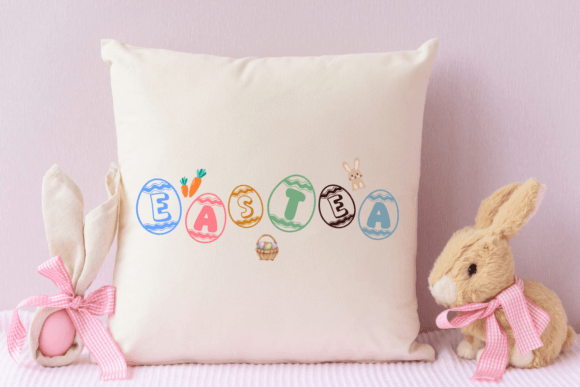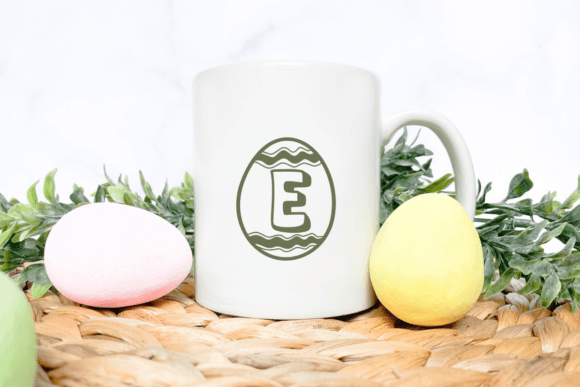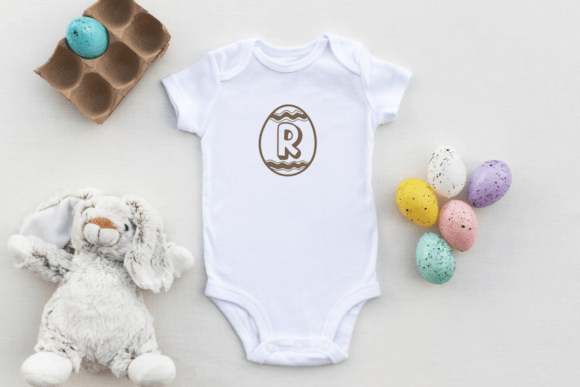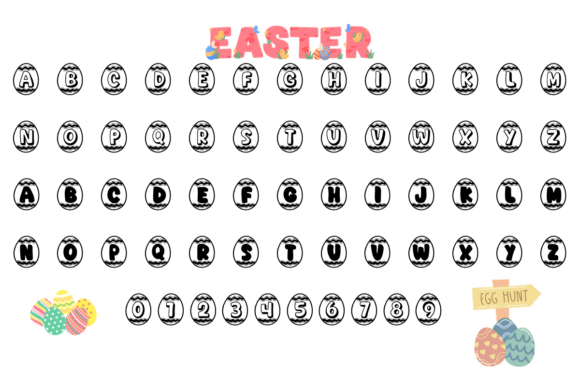
The Enchanting Easter Egg Font: A Designer’s Delight
I still remember the time I was working on a Easter-themed project for a client, and I was struggling to find the perfect font to capture the essence of the holiday. The design needed to be playful, yet elegant, and I wanted it to stand out from the usual serif and sans-serif fonts. That’s when I stumbled upon the Easter Egg font, and it was love at first sight! Imbued with charm and character, this enchanting decorative font has since become a staple in my design toolkit.
- ✨ Unique and playful character set, perfect for Easter-themed designs
- ✅ Highly versatile, suitable for a wide range of design projects, from notes and diaries to banners and social media posts
- 💫 Beautifully crafted, with a charming and whimsical feel
- 🎨 Great for adding a touch of personality to stationery, greeting cards, and more
While the Easter Egg font is a delightful addition to any design project, there are a few things to keep in mind:
- 🤔 Limited use outside of Easter-themed designs, as it may not be suitable for more formal or professional projects
- ⚠️ May not be the best choice for body text, as it’s more suited for headlines and titles
The Easter Egg font was designed with the intention of capturing the whimsy and playfulness of the Easter holiday. The designer, inspired by the colorful eggs and springtime flowers, created a font that would bring a touch of magic to any design project. With its unique character set and beautiful craftsmanship, it’s no wonder that Easter Egg has become a favorite among designers and crafters alike.
| Font Name | Easter Egg Font |
| Author | Bee piyanuch |
| What is the Easter Egg font best used for? | The Easter Egg font is best used for Easter-themed designs, such as greeting cards, banners, and social media posts. It’s also great for adding a touch of personality to stationery, diaries, and more. |
| Is the Easter Egg font suitable for body text? | No, the Easter Egg font is more suited for headlines and titles. It’s not recommended for body text, as it may be difficult to read. |